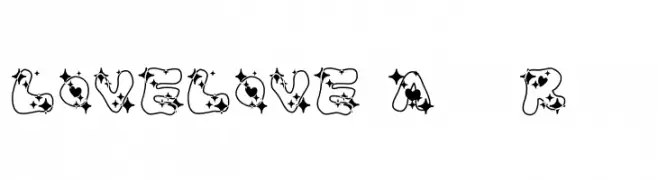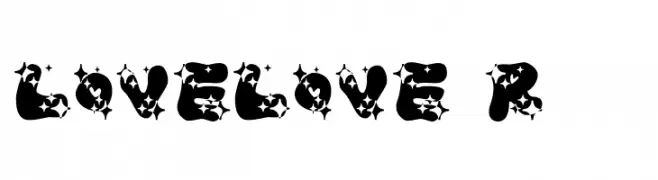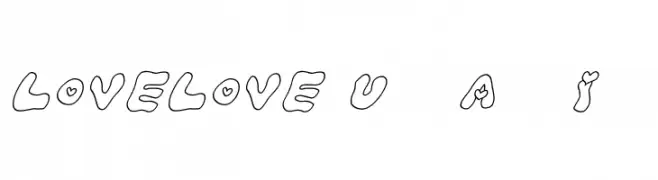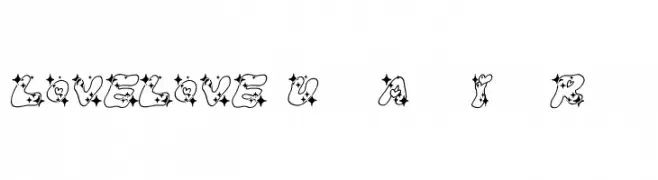
A playful, hand-drawn font with heart accents and a bubbly style.
A playful, heart-themed font with a bubbly, hand-drawn style.
A playful, decorative font with heart and star embellishments.
A playful, decorative font with star and heart embellishments.
A bold, decorative font with star-like embellishments for a playful look.